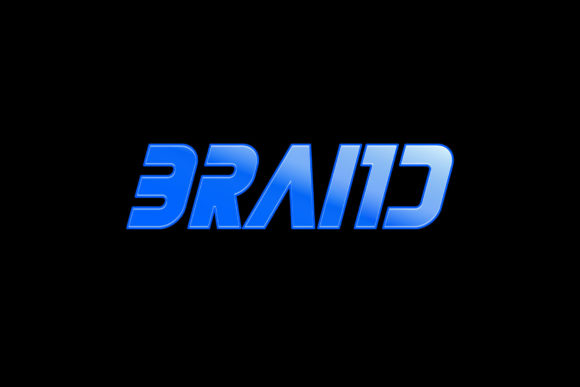
The Ultimate Guide to Brand Font: Elevate Your Designs with Bold and Thick Lettering
Have you ever been in the middle of a design project, and suddenly, you’re stuck on finding the perfect font? I recall a recent experience where a client requested a bold, eye-catching font for their logo, and after hours of searching, I stumbled upon Brand Font. It was love at first sight! With its bold and thick lettered display font, it’s been a game-changer for my designs. In this article, I’ll share my journey with Brand Font, its features, and how to make the most of it in various design platforms.
An Honest Review of Brand Font
What I Love About Brand Font ✨
- ✅ Bold and Thick Lettering: Brand Font is perfect for making a statement in your designs. Its bold and thick lettering grabs attention and adds a level of professionalism to your work.
- ✅ Endless Variations: With its wide range of OpenType features, glyphs, and stylistic alternates, you can experiment with numerous variations to find the perfect fit for your design.
- ✅ Ease of Use: Brand Font is incredibly easy to use, even for those who are new to design. Its simplicity and versatility make it a great addition to any design project.
While Brand Font is an excellent choice for display fonts, it may not be the best option for body text due to its bold nature. ⚠️ Additionally, some users may find the font a bit too thick for certain design applications.
A Practical Guide to Using Brand Font
The Backstory of Brand Font
Brand Font was designed with the intention of creating a bold and eye-catching display font that would help designers make a statement. Its creator aimed to craft a font that was both simple and versatile, allowing users to experiment with various design applications. While the actual origins of Brand Font may be unclear, its impact on the design community is undeniable.
Q: What is Brand Font best used for?
A: Brand Font is ideal for display purposes, such as logos, headings, titles, and attention-grabbing statements.
Q: Can I use Brand Font for body text?
A: While possible, Brand Font’s bold nature makes it less suitable for body text. It’s best used for headings and display purposes.